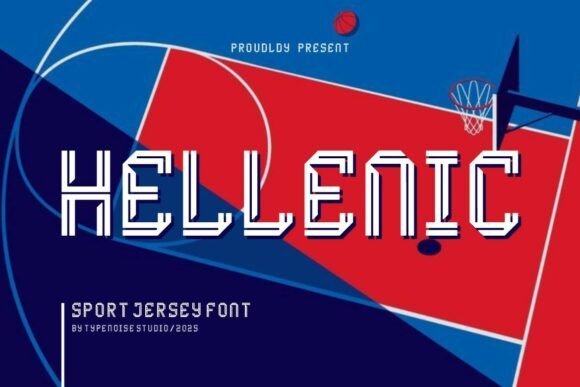
Unlock the Power of Bold Typography
Imagine the rush of adrenaline as you create a winning design for your favorite sports team or esports brand. The crowd is on the edge of their seats, and your font choice is the difference-maker. That’s where Hellenic Font comes in – a striking display font designed to leave a lasting impression.
With its geometric lines, layered strokes, and modern athletic styling, Hellenic Font is the perfect tool for designers who want to add an energetic and competitive spirit to their work. Whether you’re creating sports jerseys, team uniforms, or promotional graphics, this font instantly commands attention and delivers a bold identity that feels both modern and powerful.
For designers, Hellenic Font offers a valuable asset – a versatile and impactful typography solution that can elevate any project to the next level. Its unique multi-line construction adds depth and motion to every word, making it perfect for player names, numbers, headlines, or logo work.
Hellenic Font Key Features
- Unique Characteristics: This font features a unique blend of classical Greek and modern elements, making it an excellent choice for designers looking to add a touch of elegance and sophistication to their work.
- Font Family: Hellenic Font is part of a comprehensive font family that includes several styles, including Regular, Italic, Bold, and Bold Italic, offering designers a range of options to choose from.
Hellenic Font Review
I recently had the chance to work with the Hellenic font, and I must say it’s an interesting addition to any design project. ✨ One of its strongest features is its versatility – it can be used for both modern and classic designs, making it a great option for a wide range of projects.
Another aspect that stands out is its legibility, which is excellent even at smaller font sizes. This makes it perfect for body text or headlines in digital designs. ✨ The font also supports Greek characters, which is a plus for any projects that require it.
While the Hellenic font has its strengths, there are a few limitations that are worth noting. ⚠️ One of the main issues is that the font is not as extensive as some other options, with only a few weights and styles available. This can limit its use in certain projects, especially those that require a wide range of font variations.
Overall, I think the Hellenic font is a solid choice for designers looking for a classic, yet modern look. While it may not be the most extensive option, its versatility and legibility make it a great option for a wide range of projects. With a little creativity, the Hellenic font can be a great addition to any design.
Things to Consider
- Limited font weights and styles
- May not be suitable for projects requiring extensive font variations
- Not as extensive as some other font options
Tips for Getting the Most Out of Hellenic Font
To get the most out of the Hellenic Font, consider the following tips:
– Use the font in conjunction with other classic Greek elements, such as the Greek key or acanthus leaf.
– Experiment with different font sizes and colors to create visual interest.
– Pair the Hellenic Font with a clean, minimalist design aesthetic for maximum impact.
Common Use Cases for Hellenic Font
What are the technical details of the Hellenic Font?